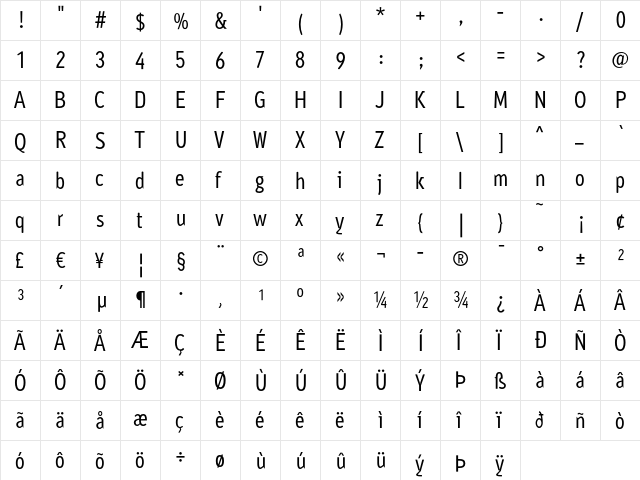
Ayumi Pro Medium
Design Context for Ayumi Pro Typeface
Ayumi Pro is a composed and adaptable typeface that performs quietly and consistently across a wide range of design contexts.